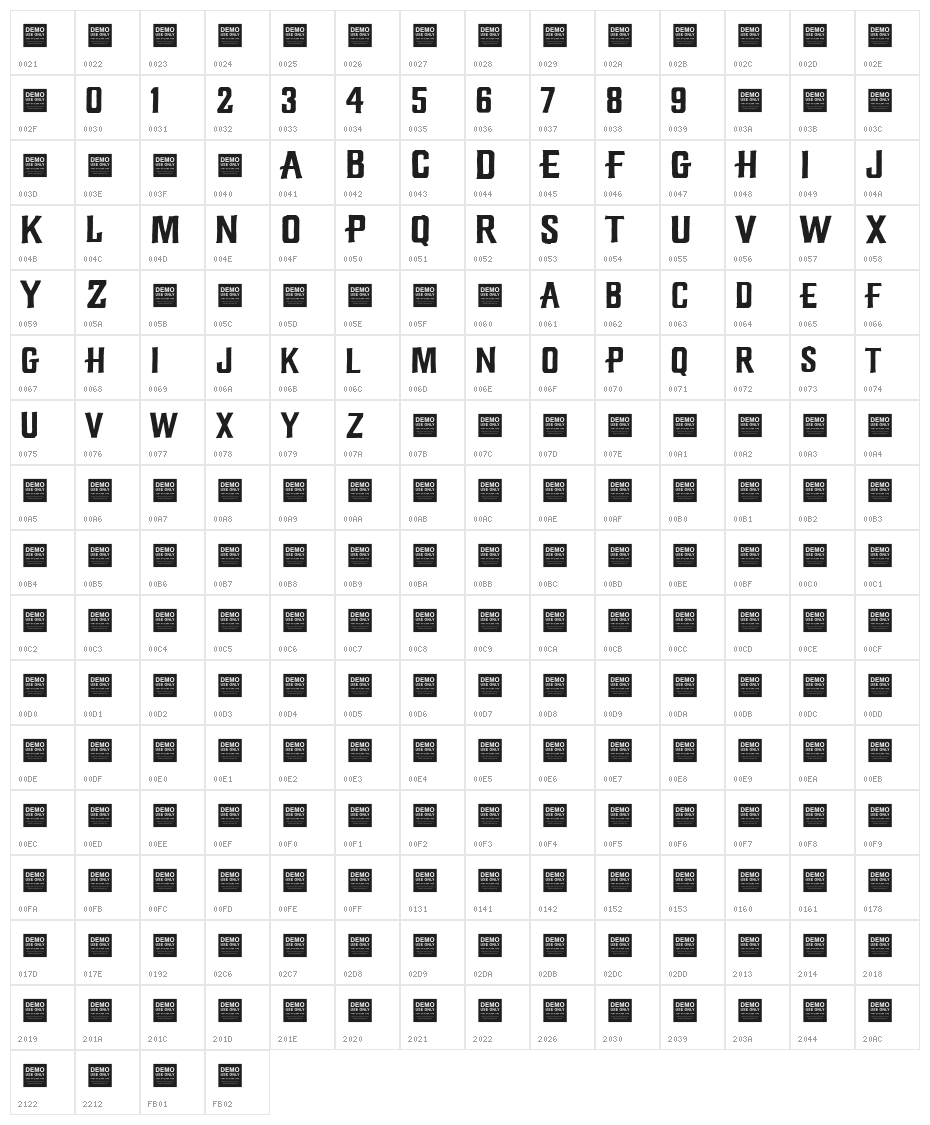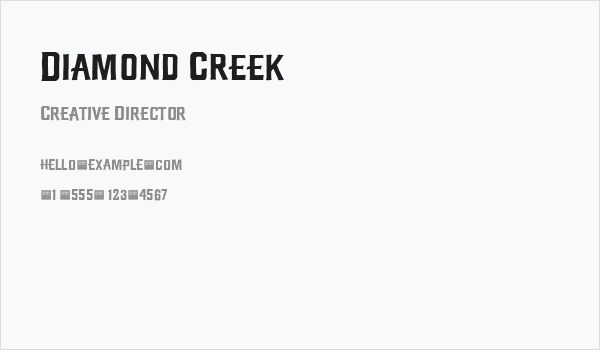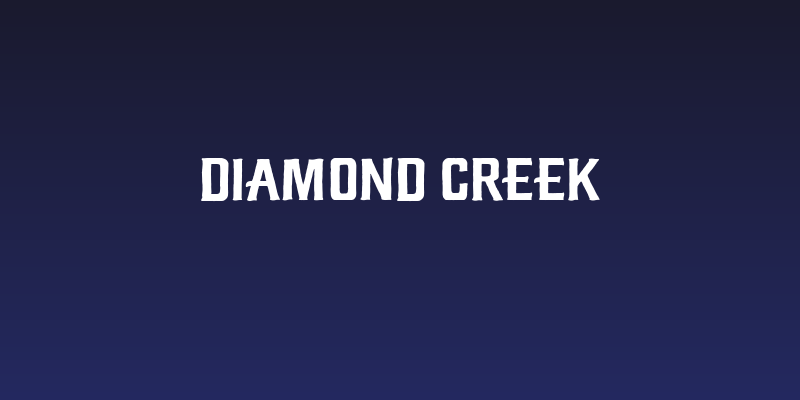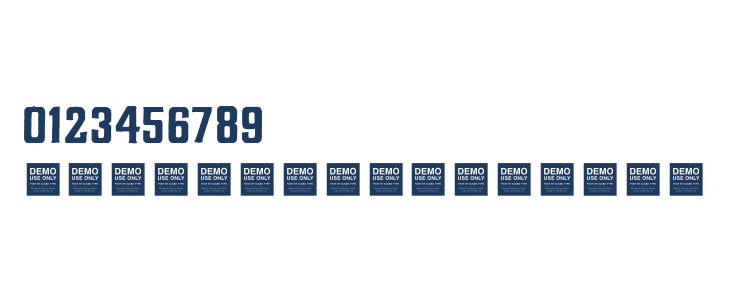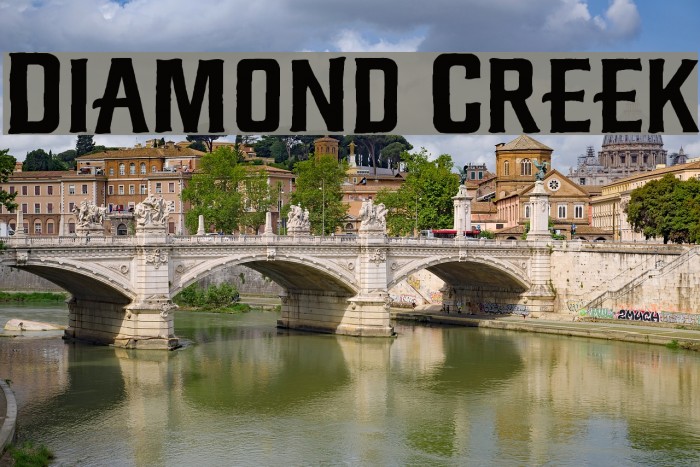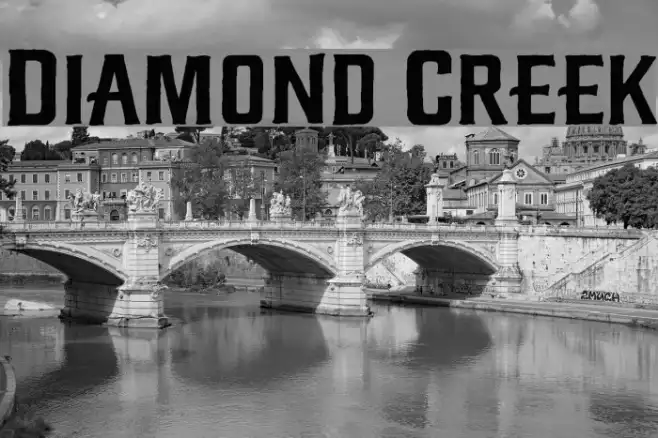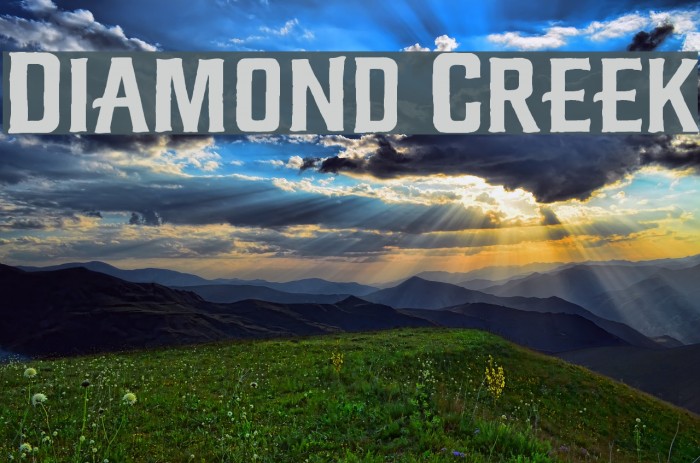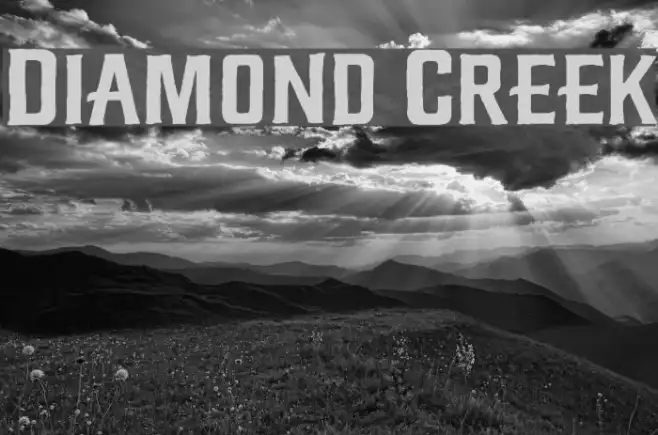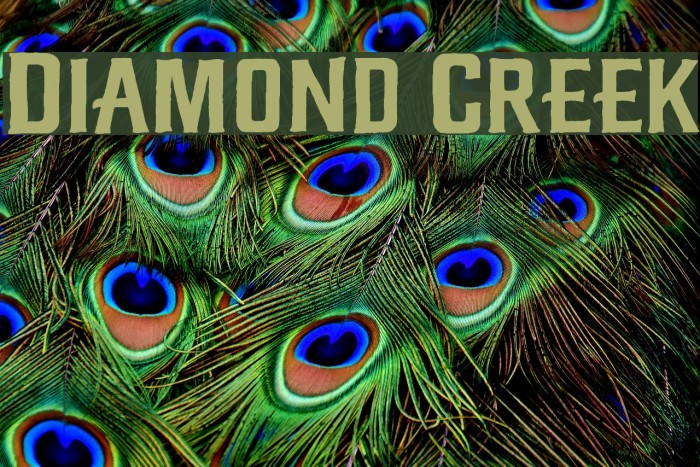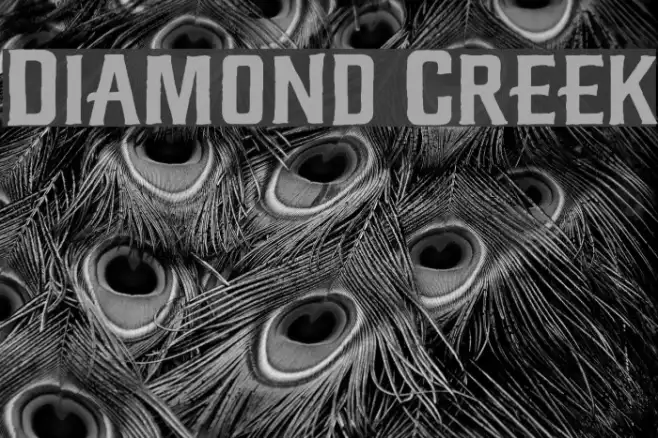
Diamond Creek Font
Diamond Creek Description
This font features a bold and rugged design with a strong presence. The characters are uppercase with a slightly distressed texture, giving them a vintage and industrial feel. The strokes are thick and consistent, providing a sturdy appearance. The numbers and special characters maintain the same bold style, ensuring uniformity across all glyphs. This font is ideal for projects that require a strong and impactful visual statement.